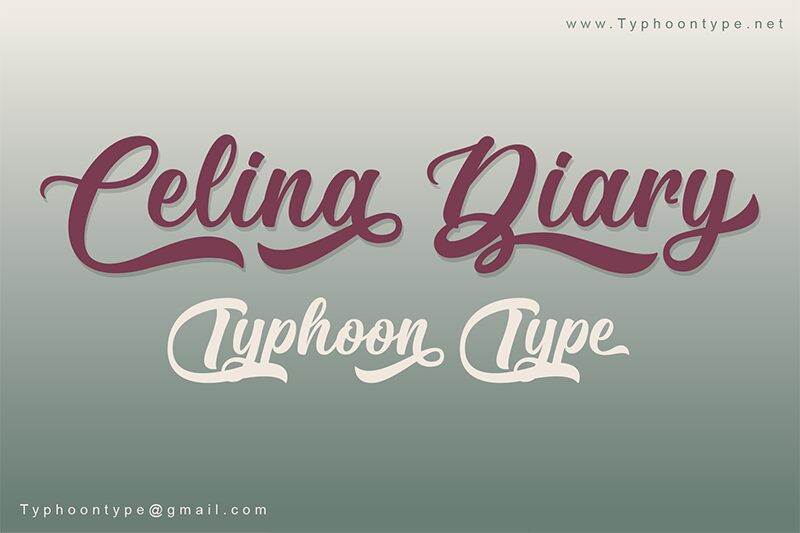
Celina Diary - Personal Use
Celina Diary font by Typhoon Type - Suthi Srisopha is an elegant free calligraphy font with artistic flair. The beautiful characters and flowing lines introduce calligraphic influences and a bold display. Along with the nostalgic references that trigger childhood memories, the warm fonts introduce emotional experiences for incredible projects.
Upgrade branding designs for cafes or arts and crafts shops or decorate book covers to match their content. Use Celina Diary in digital applications, including Instagram posts for your business, social media posts, banners (YouTube etc.), logos, packaging designs et cetera. It can also be used in printed materials like magazines, journals etc., invoices, receipts etc., stationery designs (envelopes) postcards/greeting cards/wedding invitations table cards etc.